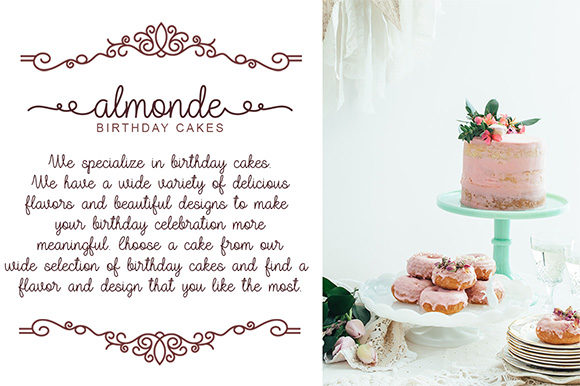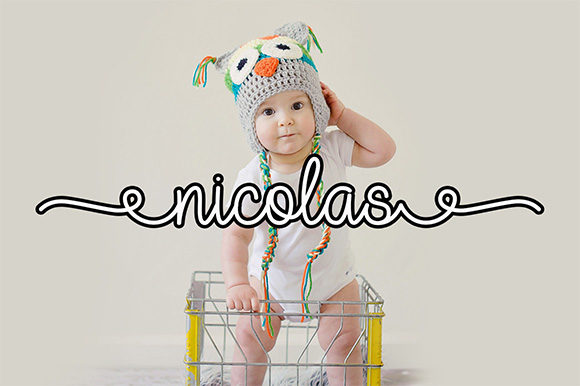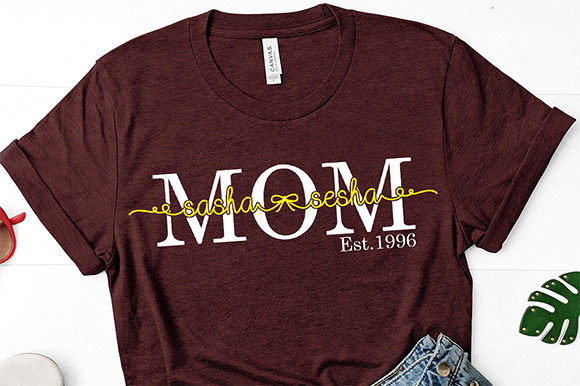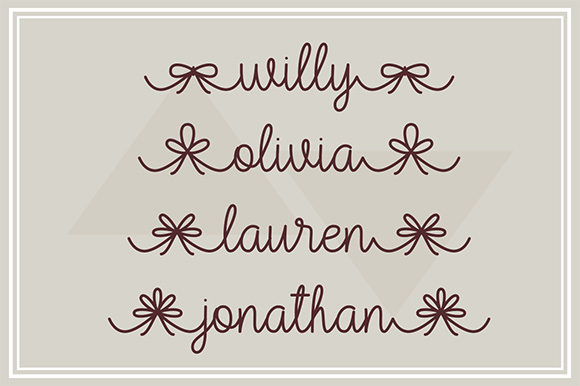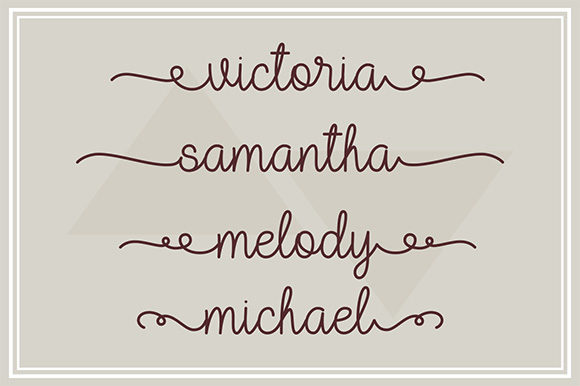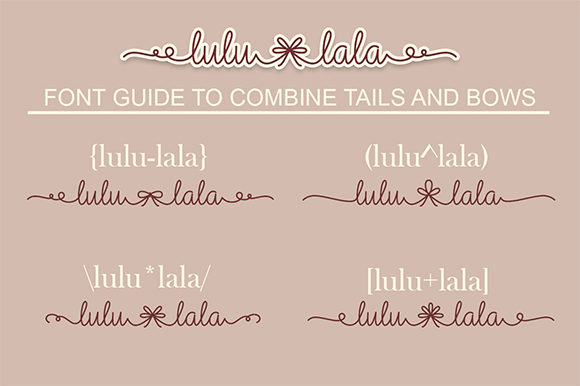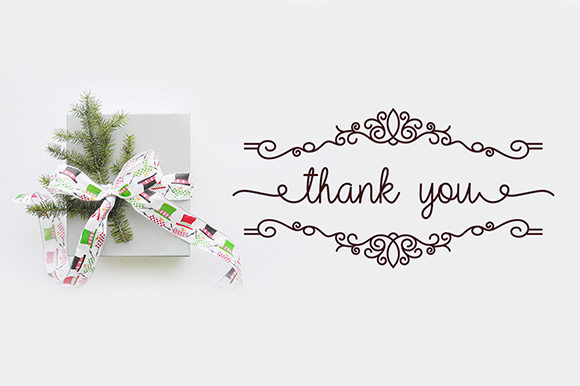
HomeScript FontsLulu-Lala Font Script Fonts Lulu-Lala Font FacebookXPinterestWhatsApp Lulu-Lala Font Poster 2 Lulu-Lala Font Poster 3 Lulu-Lala Font Poster 4 Lulu-Lala Font Poster 5 Lulu-Lala Font Poster 6 Lulu-Lala Font Poster 7 Lulu-Lala Font Poster 8 Lulu-Lala Font Poster 9 About Lulu-Lala Font Lulu-Lala is a cute and charming handwritten font with a unique twist. Get inspired by its classic appeal! DOWNLOAD ON CREATIVE FABRICAThis font is sold and delivered by Creative Fabrica. Font Canyon may earn a commission if you buy through this link. People also explored Veracity Font Monopente Font Magic Font Pioneer Font Virginia Java Font Shrifton Font Awesome Font Summer Days Font Archestra Font 374 0 TagsLulu-Lala Font Previous articleValenttina FontNext articleRaisahi Font LEAVE A REPLY Cancel reply Comment: Please enter your comment! Name:* Please enter your name here Email:* You have entered an incorrect email address! Please enter your email address here Website: Save my name, email, and website in this browser for the next time I comment. Personal Use Free Mini Story Personal Use Free Read more about this font Whitelight Personal Use Free Read more about this font Forturn Personal Use Free Read more about this font Vuldo Personal Use Free Read more about this font BLOG Using Fonts in Digital Marketing: Tips to Strengthen Your Brand Identity In the realm of digital marketing, every visual element plays a crucial role in shaping a brand's identity, and fonts are no exception. The... Where to Buy American Fonts Online in 2024 Free vs Paid Fonts: Why Investing in Premium Fonts Is Worth It How to Install and Use Fonts on Windows, macOS, and Web Projects